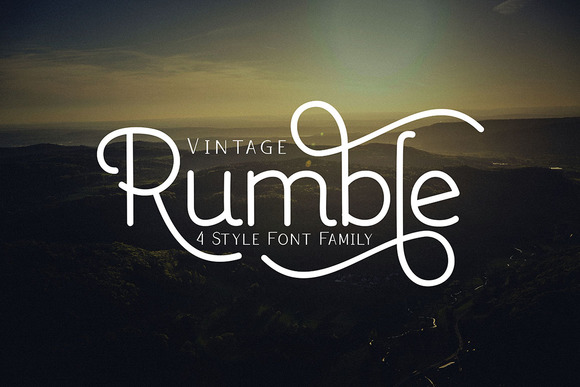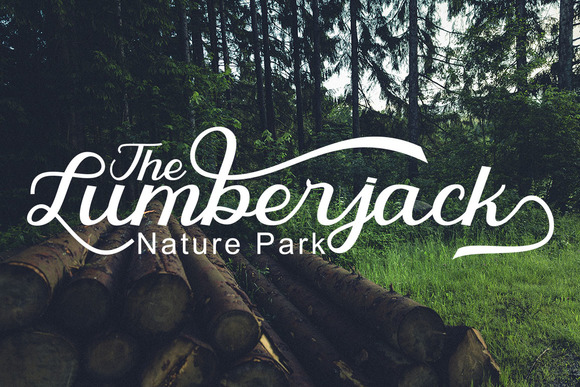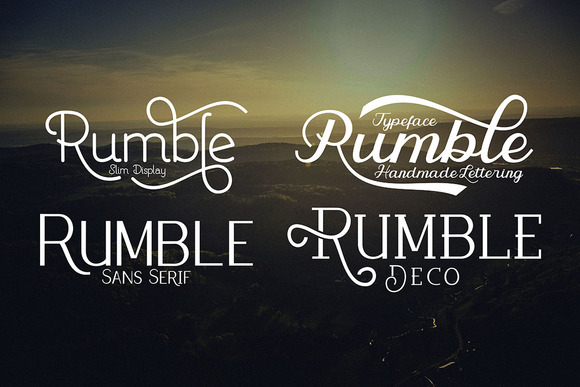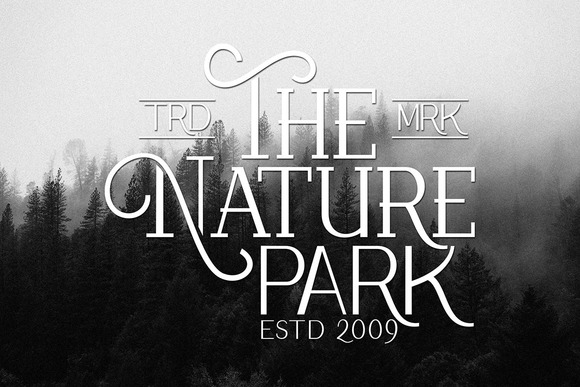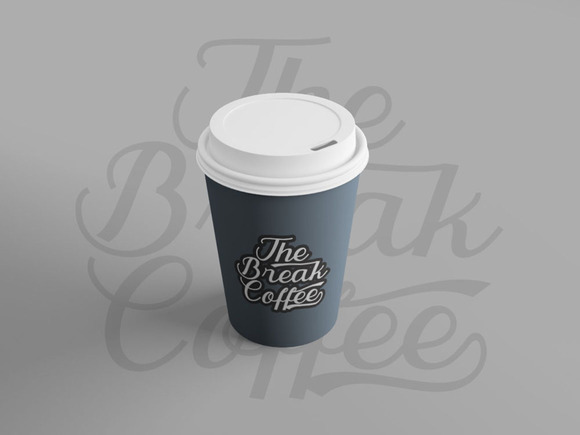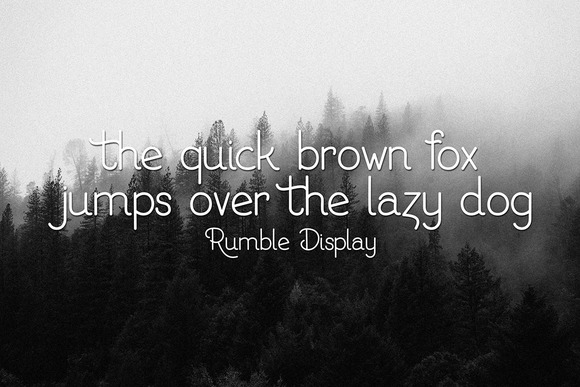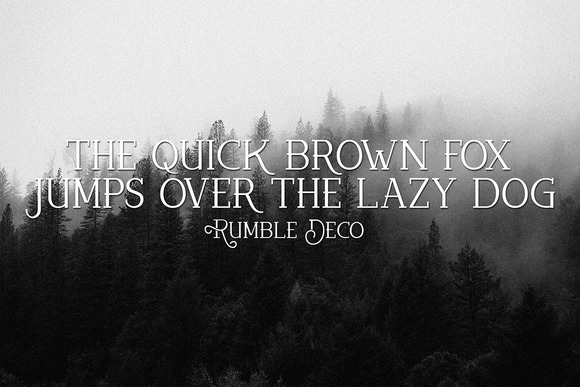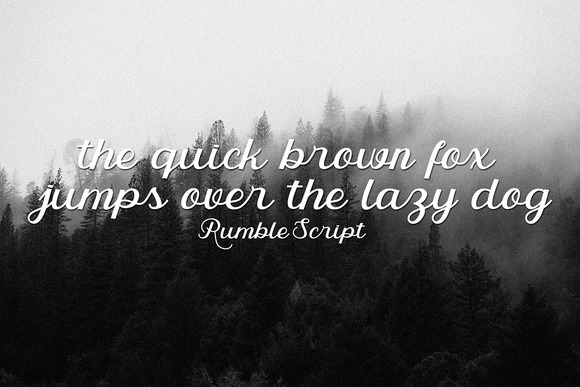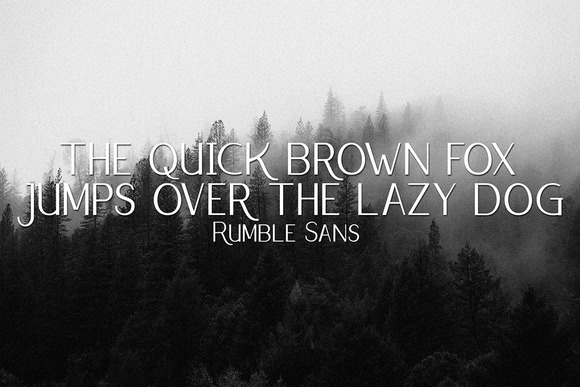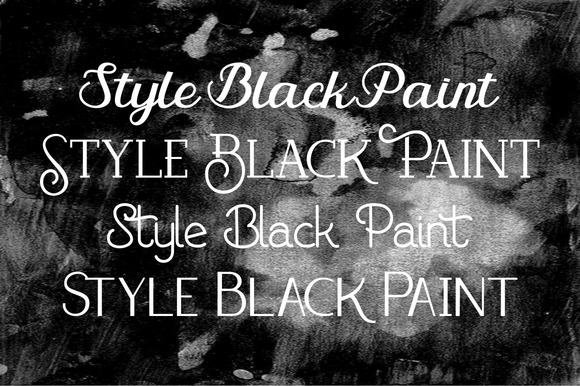
Rumble Family Font
About Rumble Family Font
Rumble is a beautiful monoline font, perfect for a wide range of creative projects that need a clean yet romantic font.  This light weight display font can add a ton of charm and presence to your projects.